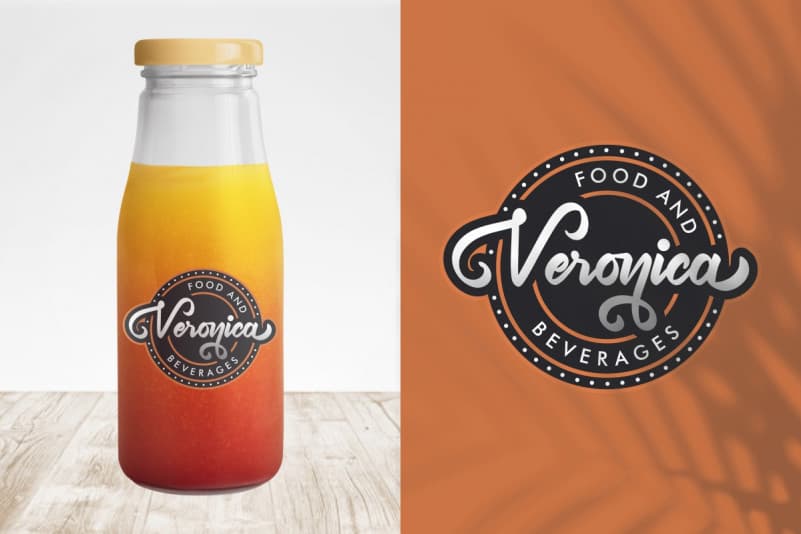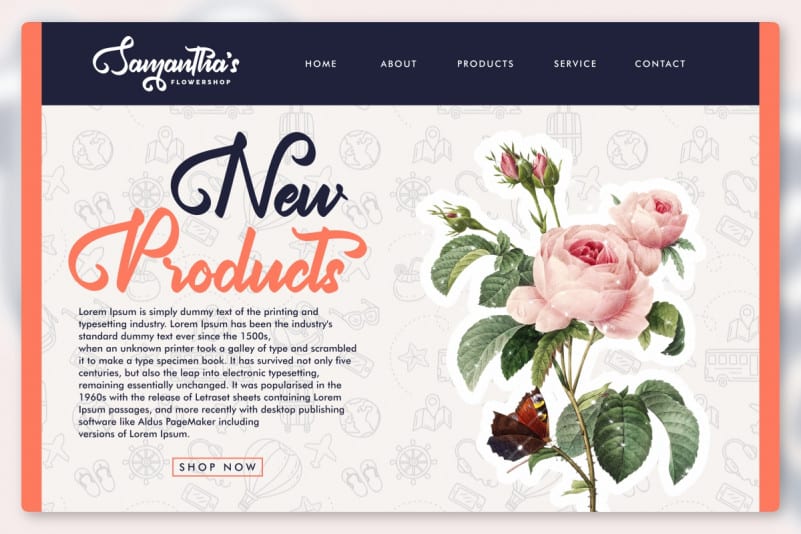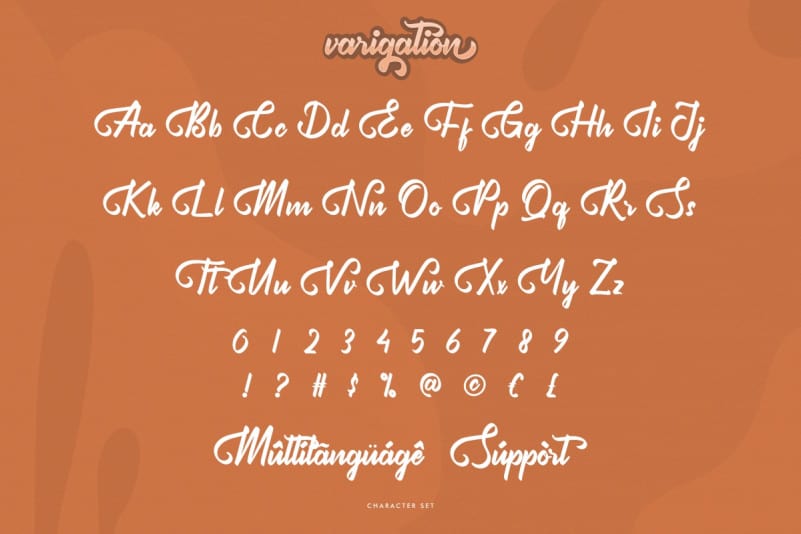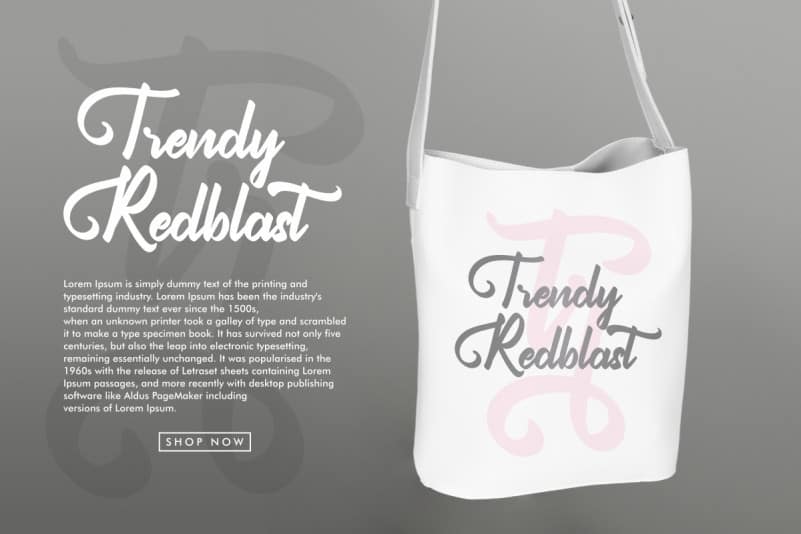
Varigation Calligraphy Font
Varigation Calligraphy Font is an old style, classic retro calligraphy font. It has unique looks that are beautiful, retro, elegant, luxury, lettering, old school, vintage and sophisticated brush font.